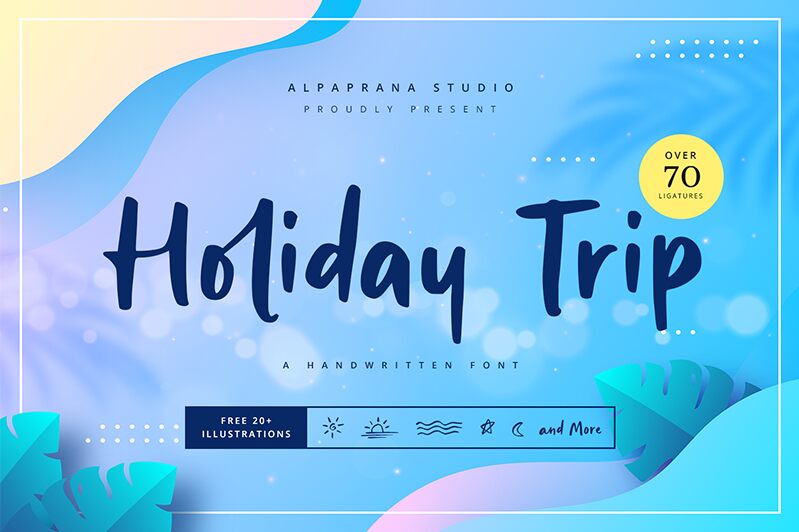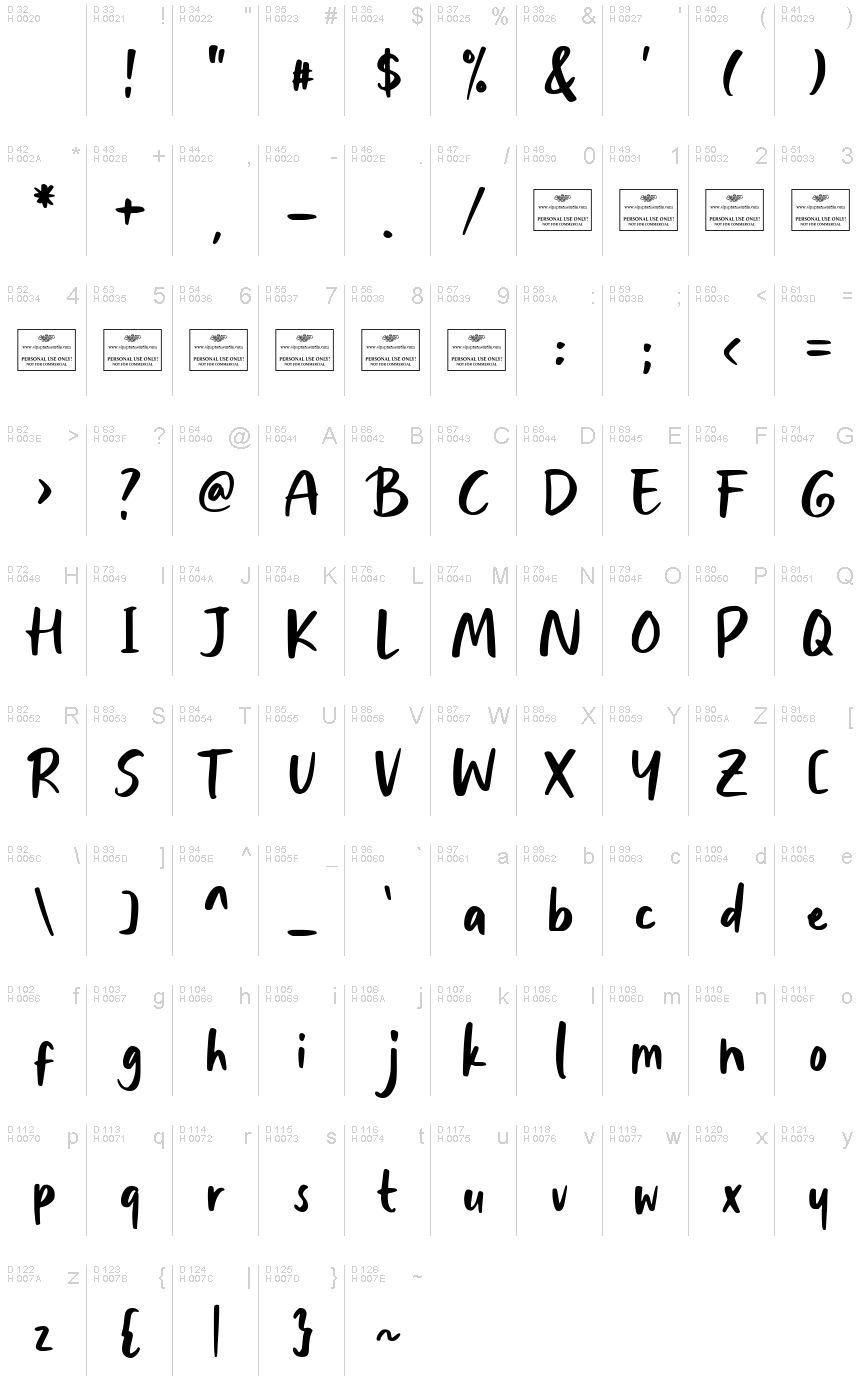
Holiday Trip
Introducing "Holiday Trip," a captivating handwritten font crafted by Alpaprana Studio. This marker-style typeface exudes a sense of playfulness and spontaneity, with its organic strokes and expressive flourishes. The font's casual elegance lends itself to a variety of design applications, from crafting invitations and greeting cards to adding a touch of whimsy to branding and editorial projects.
The versatility of "Holiday Trip" lies in its ability to evoke a range of emotions, from the carefree spirit of a summer vacation to the warm embrace of a heartfelt message. Its unique character and textured appearance make it an excellent choice for projects seeking to convey a sense of warmth, personality, and authenticity. Whether you're designing a rustic wedding suite or creating a playful social media campaign, "Holiday Trip" by Alpaprana Studio is a font that is sure to captivate and engage your audience.